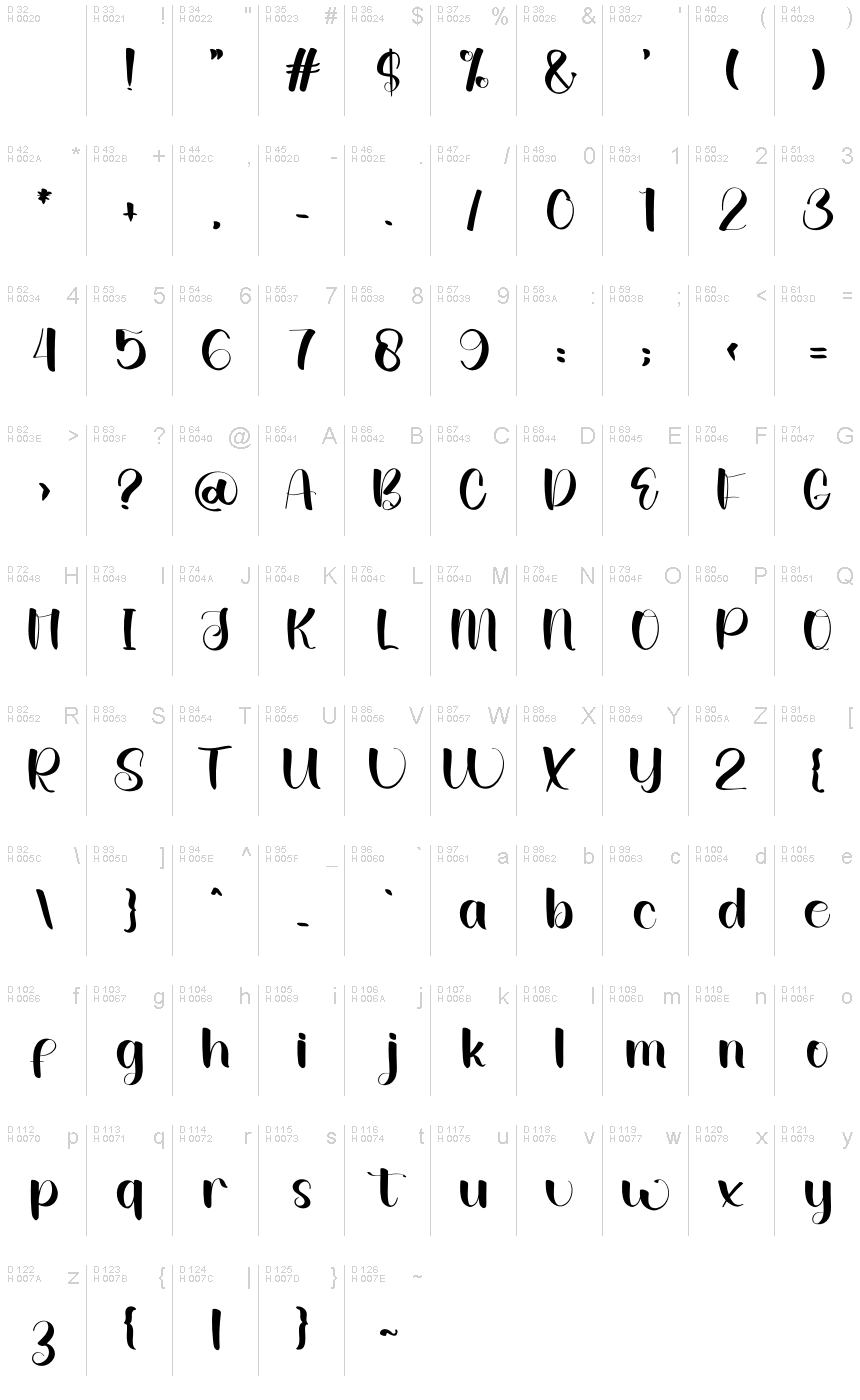
Baby Milk
The "Baby Milk" font, crafted by Inermedia Studio, exudes a captivating brushstroke aesthetic. Its bold, expressive strokes convey a sense of whimsy and playfulness, inviting the viewer to immerse themselves in its organic, handcrafted charm. The font's seamless flow and dynamic character shapes evoke a sense of movement, lending an air of effortless elegance to any design.
This versatile font lends itself beautifully to a wide range of applications, from eye-catching headlines and titles to chic branding and packaging designs. Its unique character can elevate touch points, infusing them with a touch of artistry and personality. Whether crafting invitations, creating social media graphics, or designing product labels, the "Baby Milk" font by Inermedia Studio is a captivating choice that is sure to leave a lasting impression.